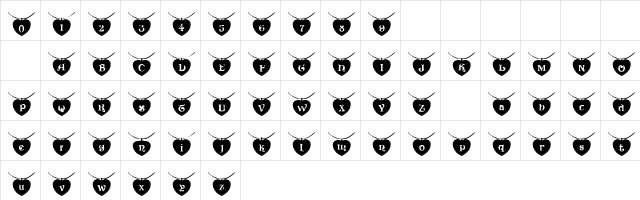
101! Heart StringZ Regular Free Font
101! Heart StringZ Regular
Design Context for 101! Heart StringZ
101! Heart StringZ is a composed and adaptable typeface that performs quietly and consistently across a wide range of design contexts.